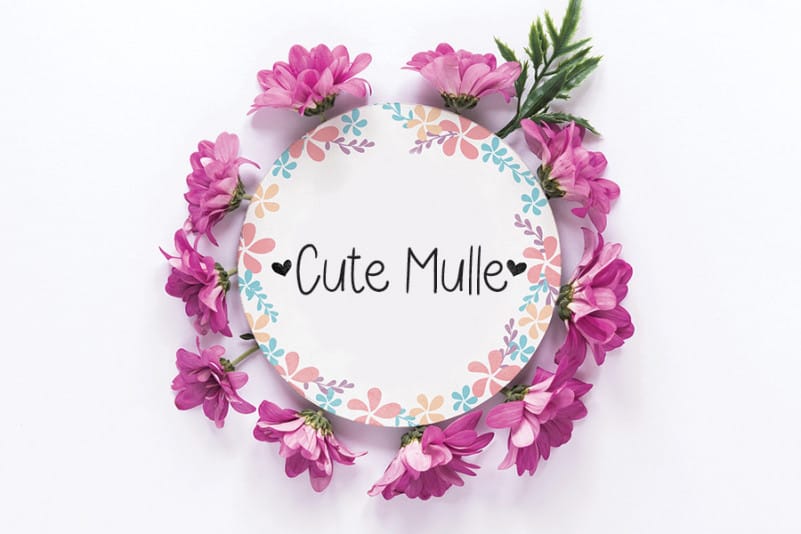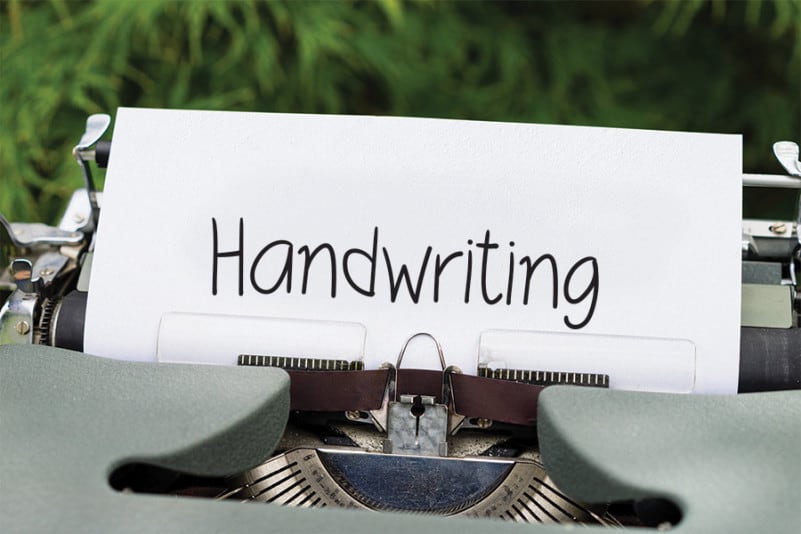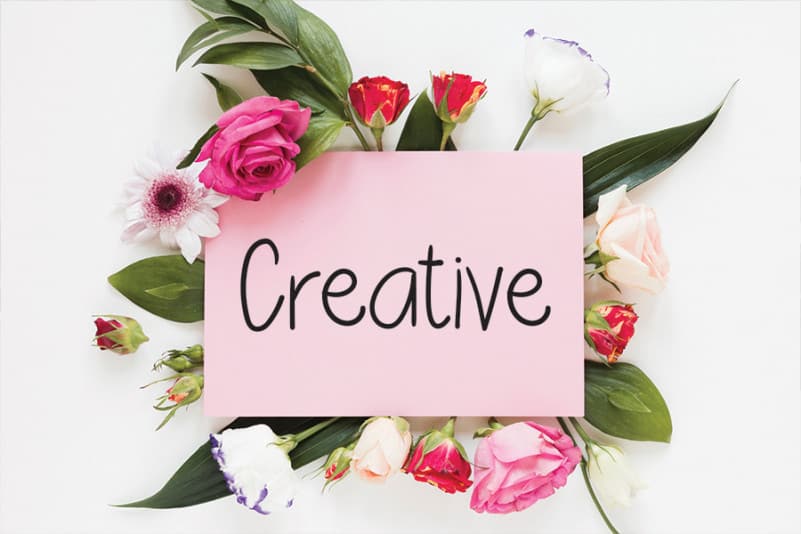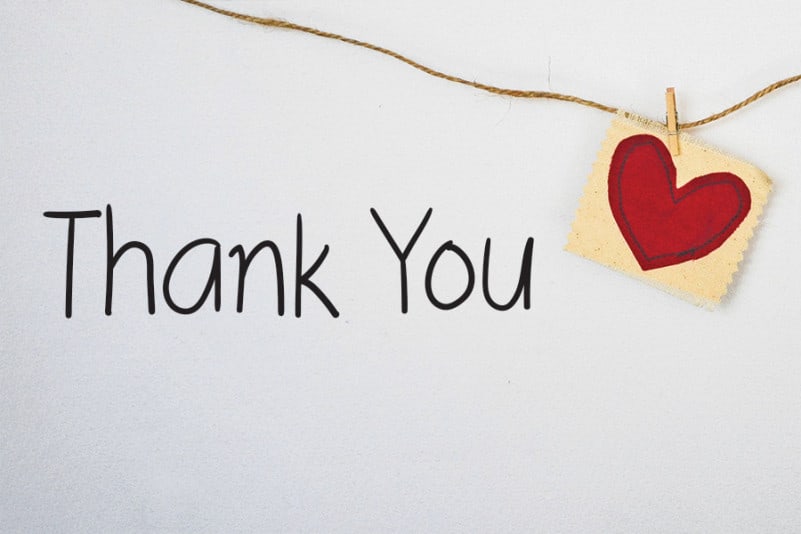
Bollea Flower Handwritten Font
Bollea Flower Handwritten Font is a simple and friendly handwritten font. Its casual charm makes it appear wonderfully down-to-earth, readable and, ultimately, incredibly versatile. Bollea Flower will look outstanding in any context, whether it’s being used on busy backgrounds or as a standalone headline!